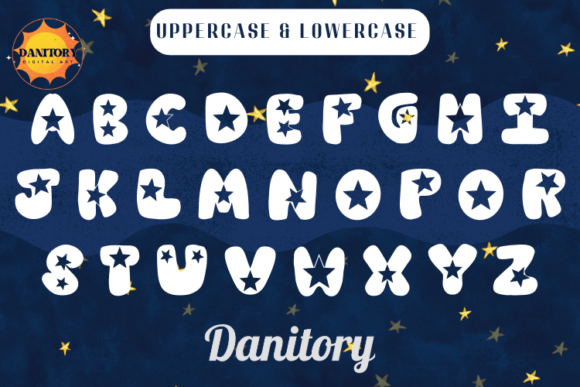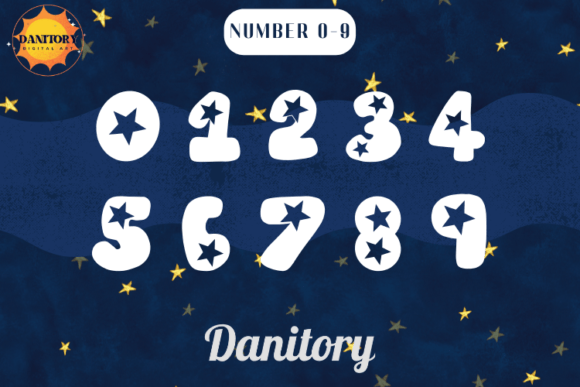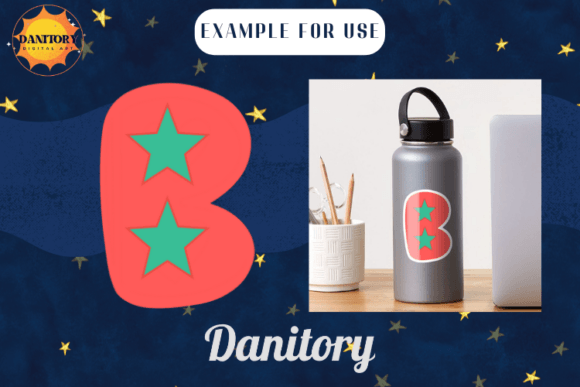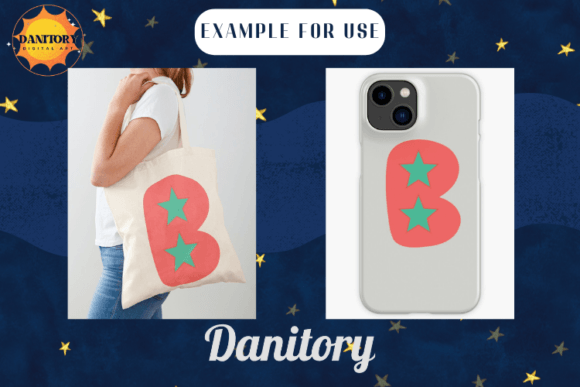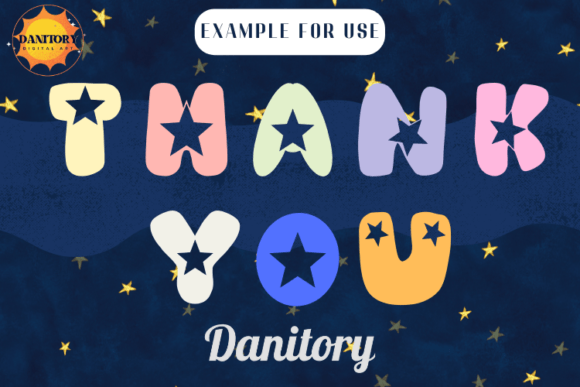
Introduction to My Stars Font
Have you ever been working on a design project, and suddenly a spark of creativity hits you? Maybe it’s the perfect combination of colors, or a clever idea that makes your design pop. For me, it’s the little details that make all the difference – like the right font. And that’s exactly what the “My Stars Font” brings to the table: a dash of whimsy and enchantment that can elevate any design.
As a designer, you know how valuable it is to have a high-quality design resource that can add a touch of personality to your creative project. With its adorable dots resembling stars, the “My Stars Font” is a game-changer for anyone looking to add a playful and magical vibe to their work. Plus, with a transparent background, you can easily place it over any image or background, giving you endless possibilities.
Key Features of My Stars Font
- Perfect for designers, artists, and creatives working on projects that require a touch of elegance and sophistication.
Honest Review: My Stars Font
As a designer, I’m always on the lookout for high-quality design resources that can elevate my creative projects. My Stars Font has caught my attention, and I’m excited to share my honest review.
Tips for Getting the Most Out of My Stars Font
To get the most out of My Stars Font, use it in combination with other design elements, such as images and graphics, to create a visually appealing design. You can also experiment with different font sizes and styles to achieve the desired effect.
My Stars Font is commonly used in creative projects, such as social media graphics, posters, and flyers. It’s also suitable for use in presentations, documents, and websites where a touch of whimsy is needed.